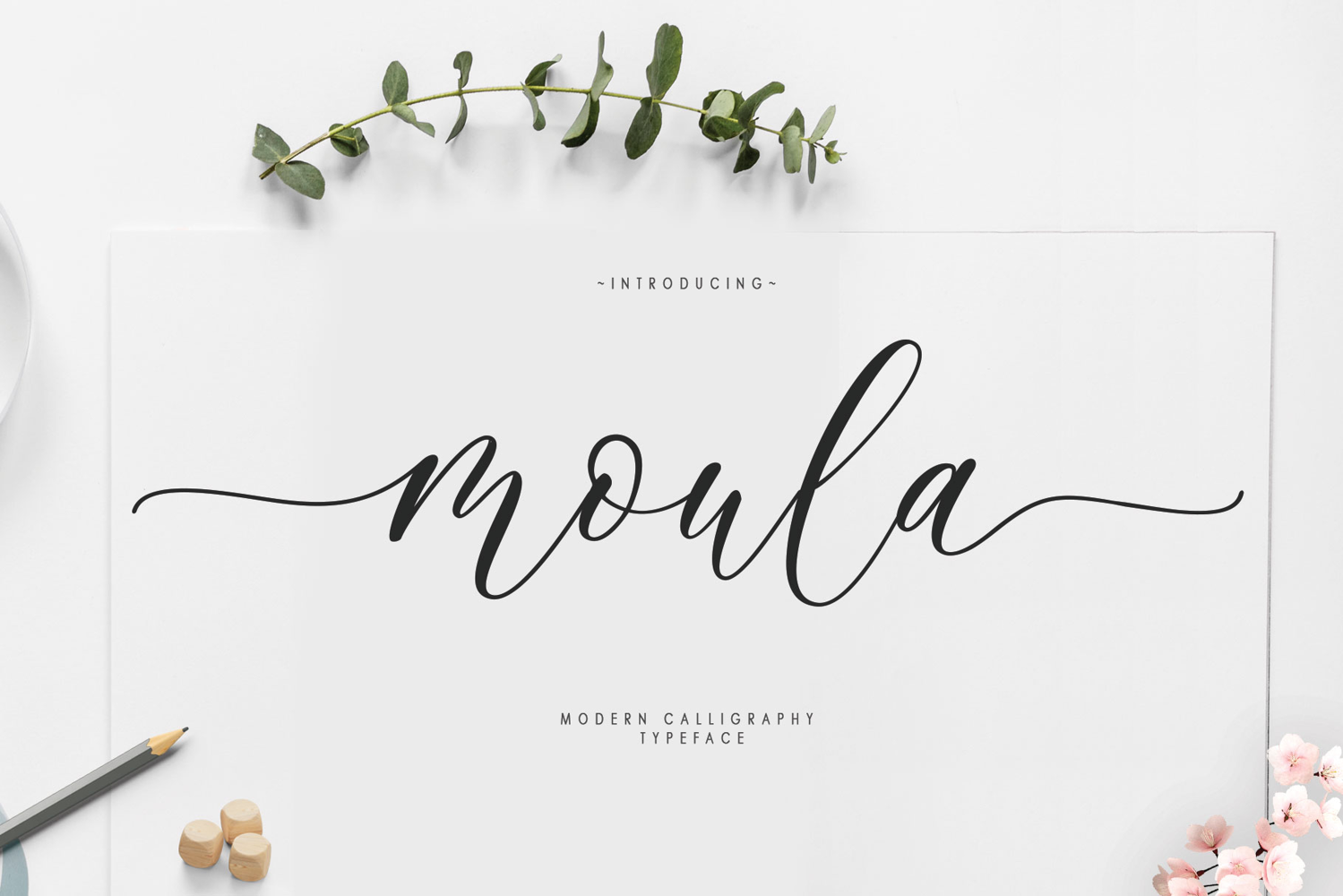
Maula Script
Moula
Moula Script calligraphy an elegant new font! This font is specially created for those of you who need a touch of elegance to design your projects next with perfect results and amazing.
Moula Script A very beautiful and interesting script, and comes with a perfect line for use for various purposes. Like titles, signatures, logos, correspondence, wedding invitations, letterheads, nameplates, labels, bulletins, posters, badges, Branding, Greeting Cards, etc. Moula Script is built with OpenType features and includes start and end. It comes with OpenType Stylistice set, Stylistic Alternates, swashes, ligatures and everything to add a touch to your design and also supports other languages :)